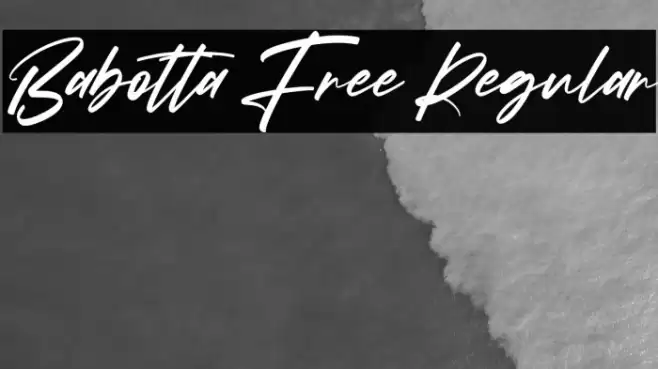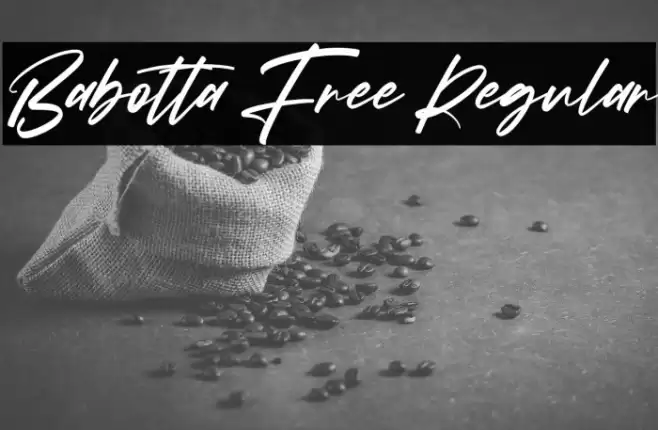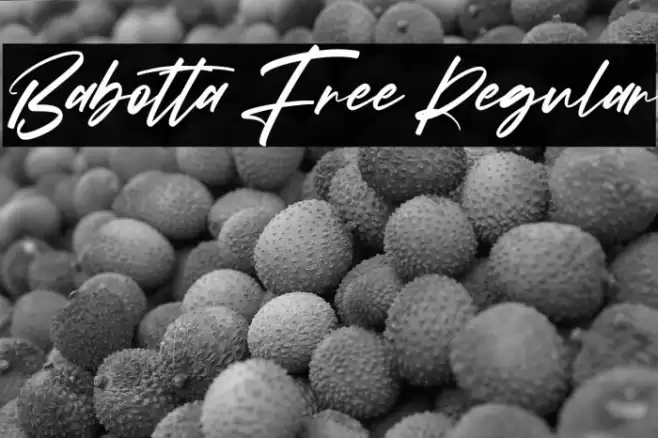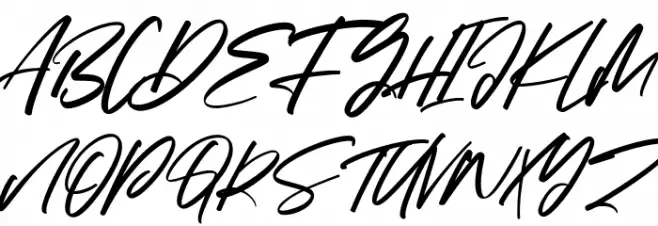
Babotta Free Regular Font
Babotta Free Regular Description
This font exudes a dynamic and energetic vibe with its fluid, handwritten style. The strokes are bold and expressive, capturing a sense of movement and spontaneity. Each character flows seamlessly into the next, creating a cohesive and visually engaging script. The uppercase letters are particularly striking, with dramatic flourishes and a sense of grandeur. The lowercase letters maintain the same fluidity, offering a harmonious balance. This font is perfect for projects that require a personal touch or a creative flair, such as invitations, branding, or artistic designs. Its unique style makes it stand out, adding a touch of elegance and personality to any text.
A dynamic, handwritten script font with bold, fluid strokes from Regular fonts.
- Font: Babotta Free Regular
- Proposed Projects: Ideal for invitations, branding, artistic designs, and projects needing a personal touch.
- Character Spacing: Tight
- Use Case: Logos, Headlines, Artistic designs